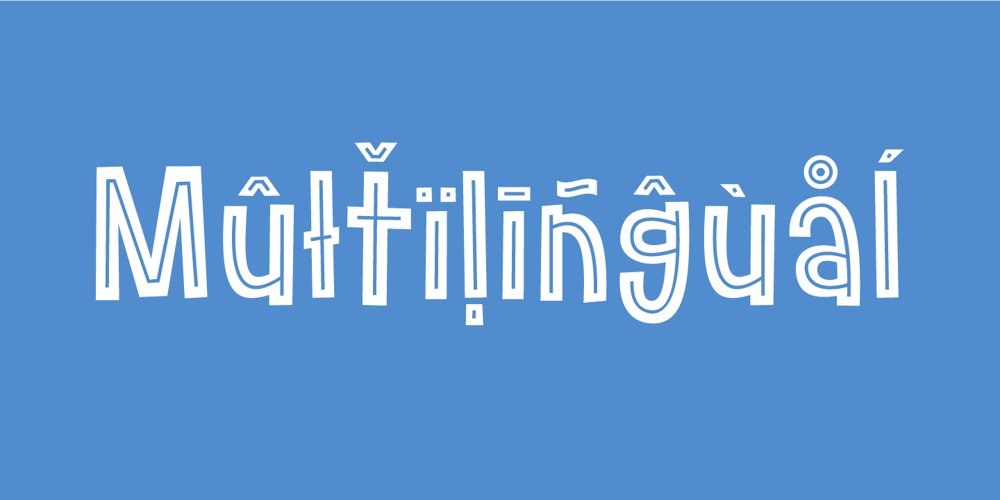
Party Crush
Party Crush font
Party Crush Font Family was designed by Jakob Fischer and published by PizzaDude.dk. Party Crush contains 3 styles and family package options. A playful font that works well with themes such as party invitations, comics or something to do with candy or toys. 3 different versions are available: Regular, Inline and Thin. And all 3 versions has ligatures for double lettering that with jumpy alternates. Play around with both ligatures and the different versions to get a look that suits you the best.